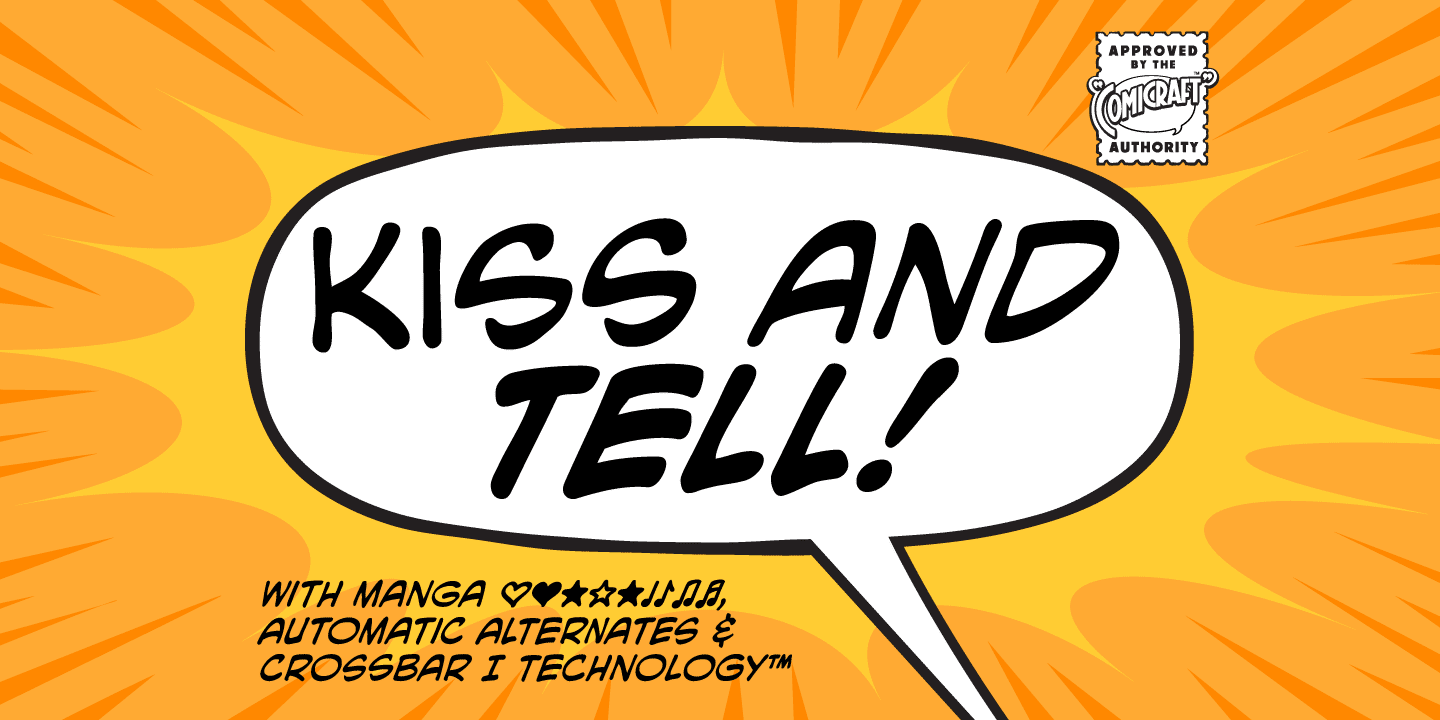
The Kiss And Tell Font is perfect for romantic design projects including beauty brand campaigns, valentine's day marketing, cosmetics packaging, romantic wedding invitations, love-themed greeting cards, intimate restaurant branding, boutique fashion labels, and passionate lifestyle magazines. This alluring typeface brings romantic charm and flirtatious elegance to any design project celebrating love, beauty, and intimate personal expression.
What makes Kiss And Tell Font so exciting is its captivating combination of romantic allure with playful sophistication that creates an immediate sense of intimacy and charming confidentiality. The letters feature seductive curves with flirtatious character details that evoke feelings of romance and personal connection. This distinctive romantic character makes it perfect for brands and projects that want to communicate intimacy, beauty, and the irresistible appeal of romantic storytelling and personal charm.
The Kiss And Tell Font family typically includes regular and bold weights, often with romantic script variations and love-inspired decorative elements. Many versions feature romantic symbols, beauty glyphs, and intimate design elements that enhance its authenticity for romance and beauty applications.
Whether you're designing for beauty brands, romantic venues, or intimate lifestyle companies, Kiss And Tell Font Free Download offers the perfect solution for projects that need to convey romantic charm and intimate appeal. This font transforms standard text into enchanting designs that immediately communicate romantic sophistication, personal intimacy, and the captivating allure of love-inspired storytelling to audiences seeking romantic experiences and beautiful personal expression.